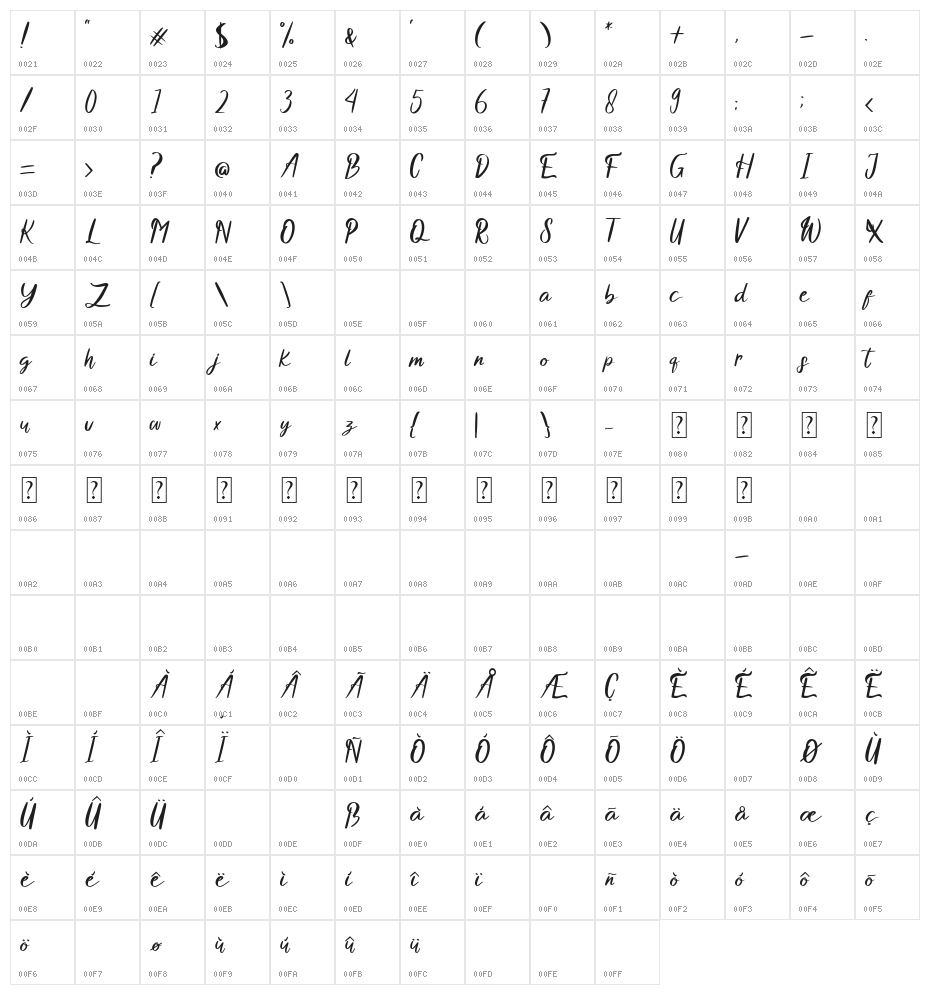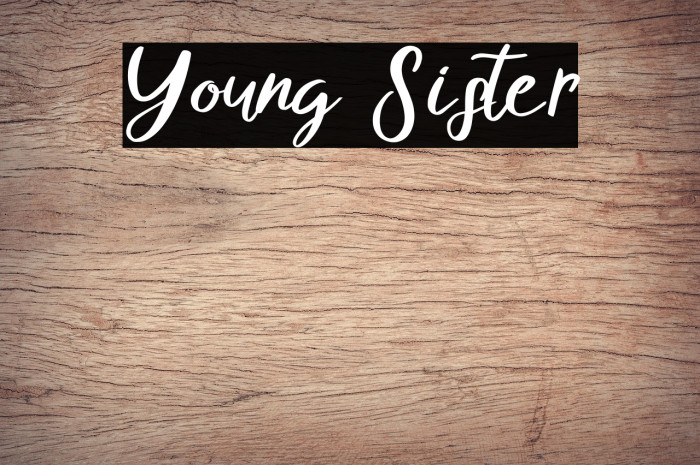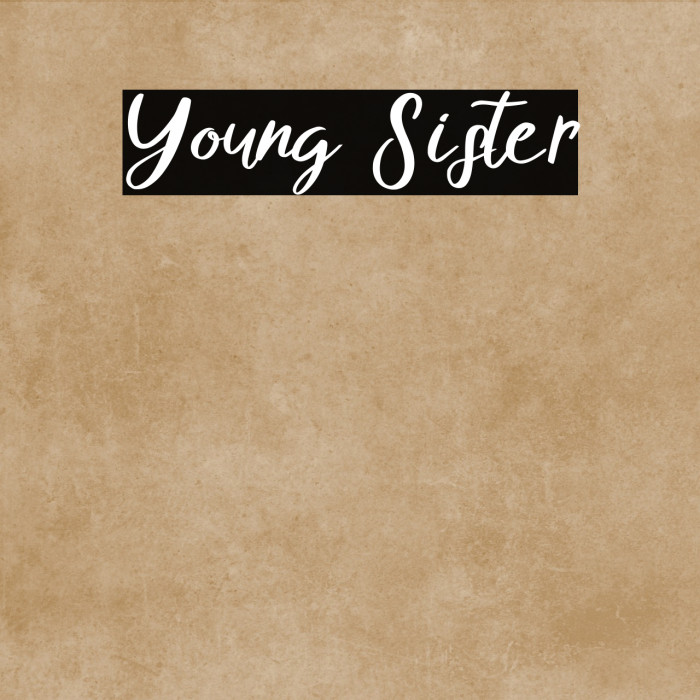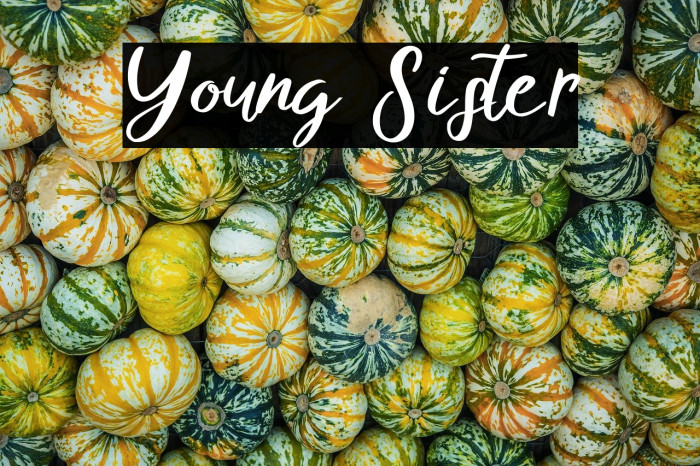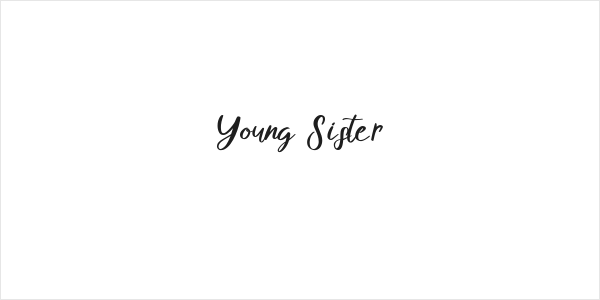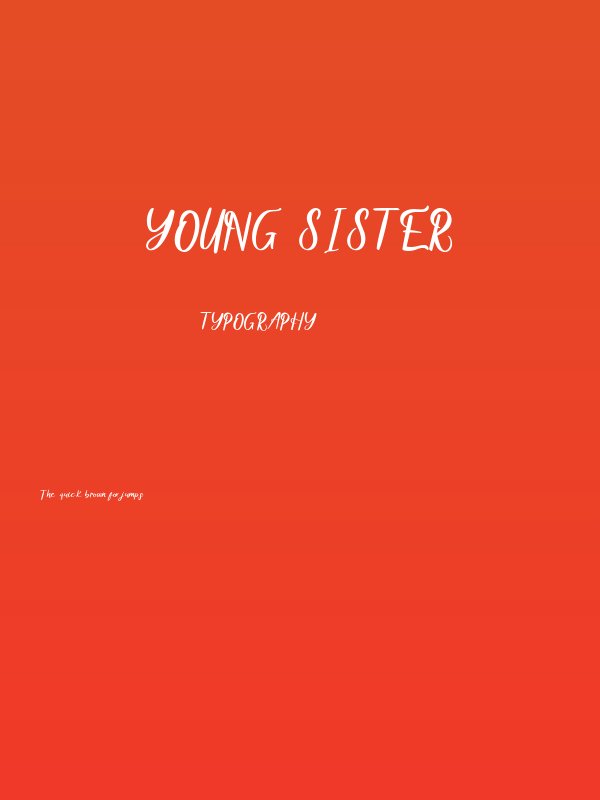
Young Sister Font
Young Sister Description
This font features a lively and dynamic script style, characterized by fluid and connected strokes that give it a handwritten appearance. The uppercase letters are bold and slightly slanted, adding a sense of movement and energy. The lowercase letters maintain a consistent flow, with some characters extending below the baseline, enhancing its casual and informal look. The numerals are clear and legible, matching the overall style with slight variations in stroke thickness. Special characters are creatively designed, maintaining the playful and artistic essence of the font. This font is perfect for projects that require a personal touch or an expressive, artistic flair.
| Proposed Projects | Ideal for greeting cards, invitations, personal branding, and creative projects requiring a personal touch. |